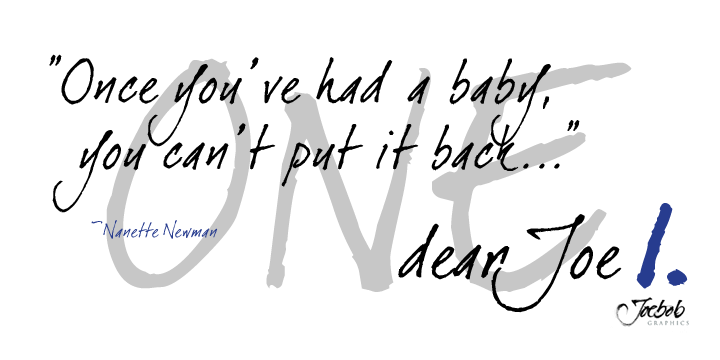
DearJoe 1
Designed by: Jeroen “Joebob” van der Ham
Designed when: 2000-05
DearJoe 1
DearJoe 1 is the first of four handwritten scripts by JOEBOB graphics.
It includes a complete character set with numbers and most (but not all) special signs.